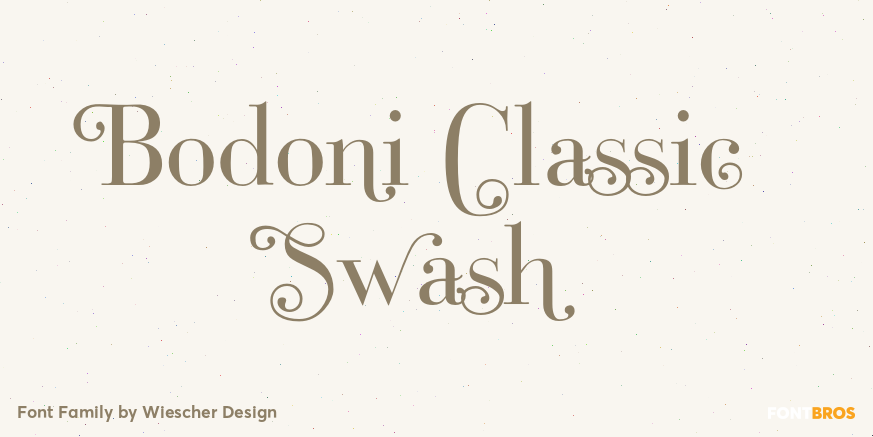
Bodoni Classic Swash
Bodoni Classic Swashes is my personal addition to Bodoni\’s family of typefaces. Bodoni did not design a decorative version. His quest was for purity in book design. Even though in his days it was not called design; he thought of himself purely as a printer.…